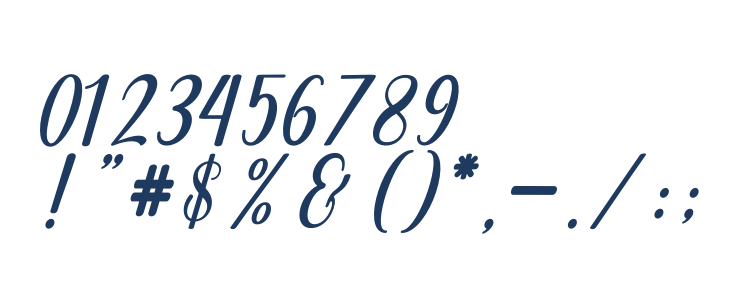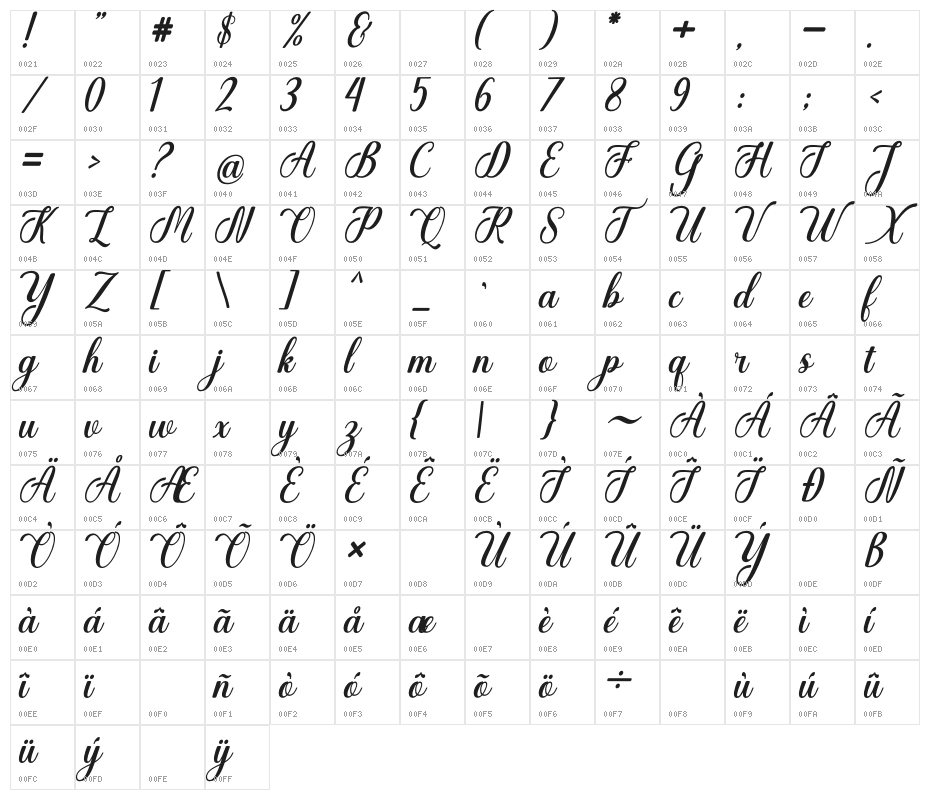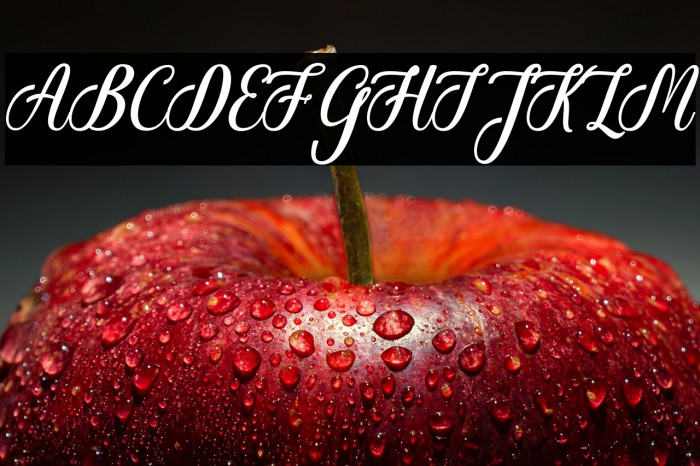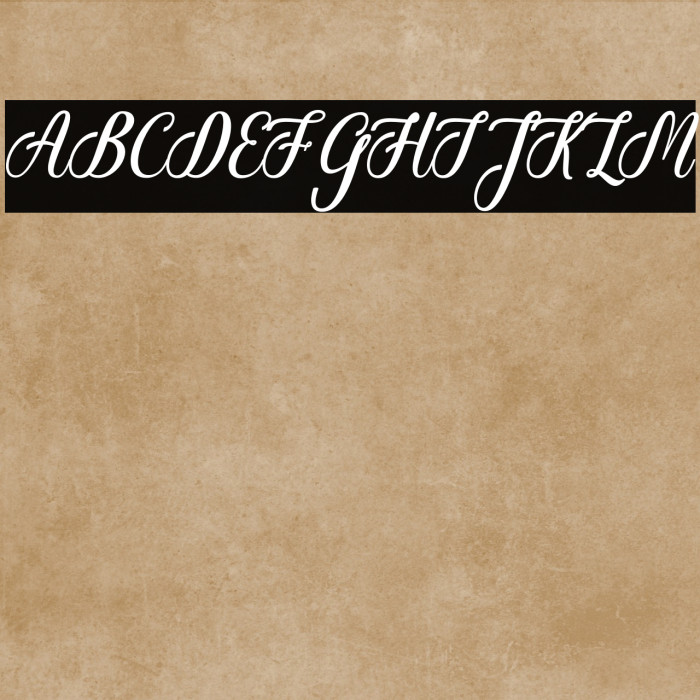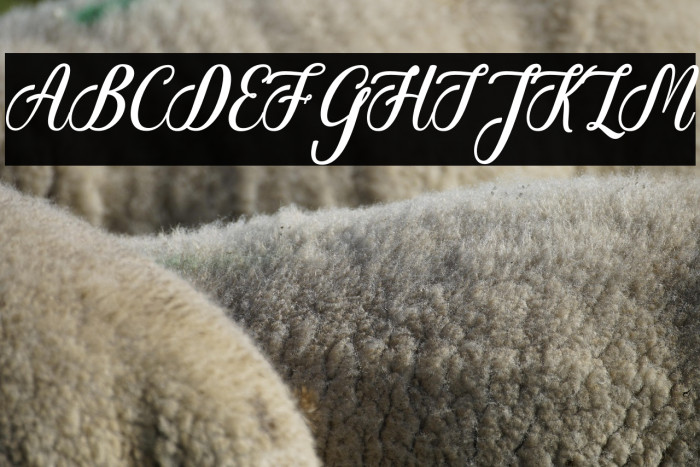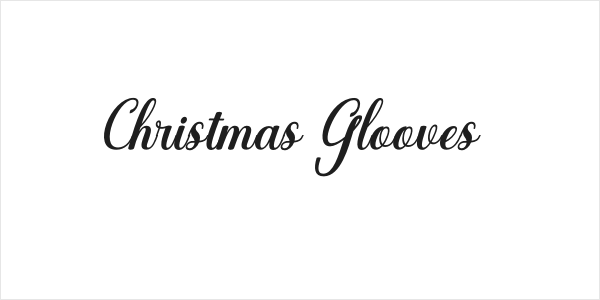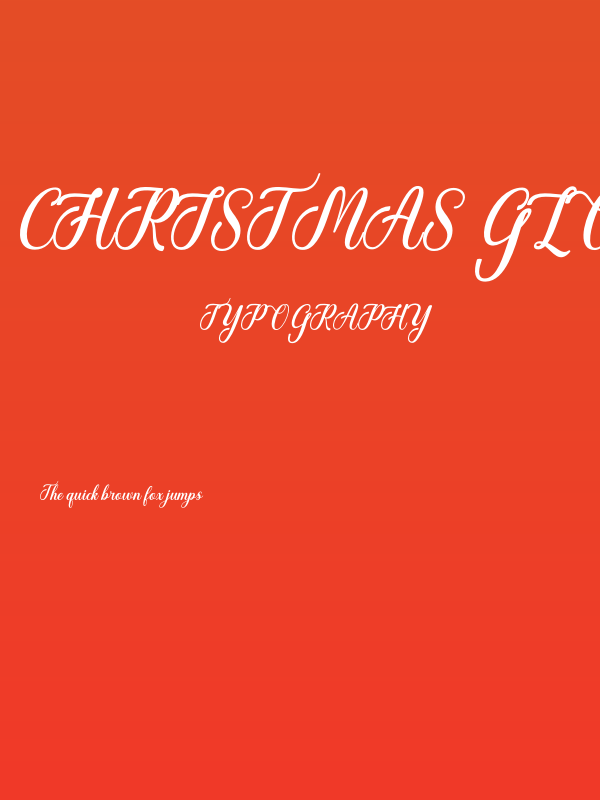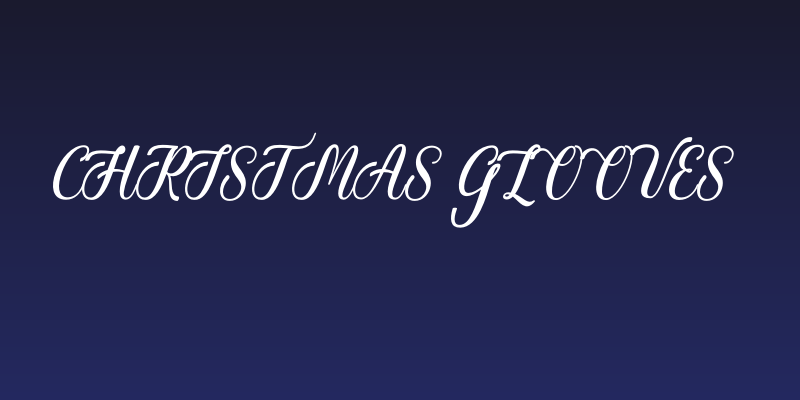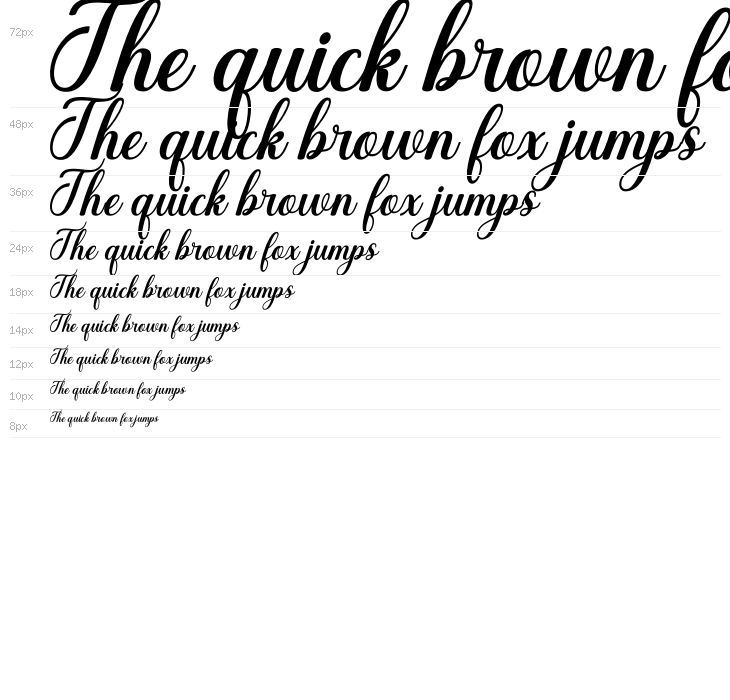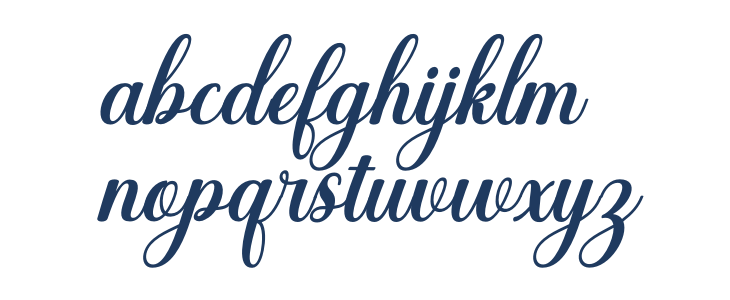
Christmas Glooves Font
Christmas Glooves Description
This elegant script font features a flowing, cursive style with smooth, connected strokes that evoke a sense of sophistication and grace. The uppercase letters are slightly more ornate, with flourishes that add a touch of flair, while the lowercase letters maintain a consistent, fluid motion. The numerals and special characters are designed to match the overall style, ensuring a cohesive look across all text. The font's design is both decorative and legible, making it suitable for a variety of uses where a touch of elegance is desired.
| Overall Style | Elegant, Decorative |
| Use Case | Headlines, Invitations, Branding |
| Proposed Projects | Ideal for wedding invitations, greeting cards, elegant branding, and decorative headlines. |